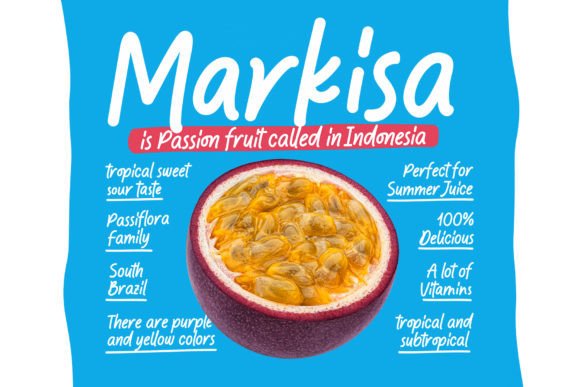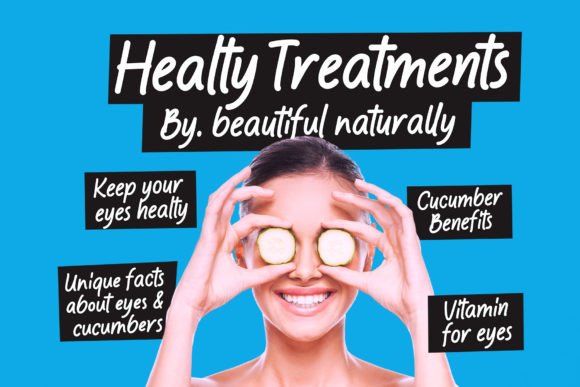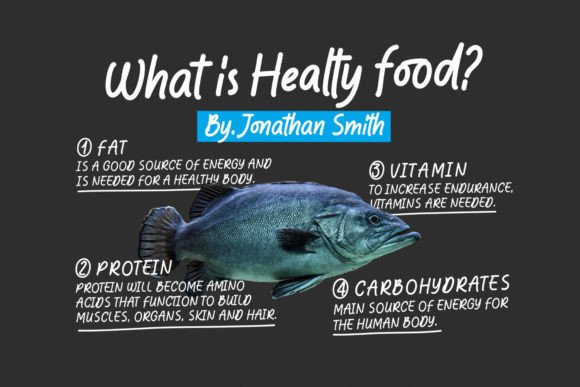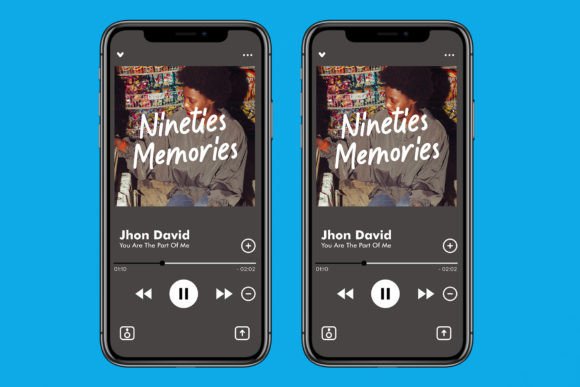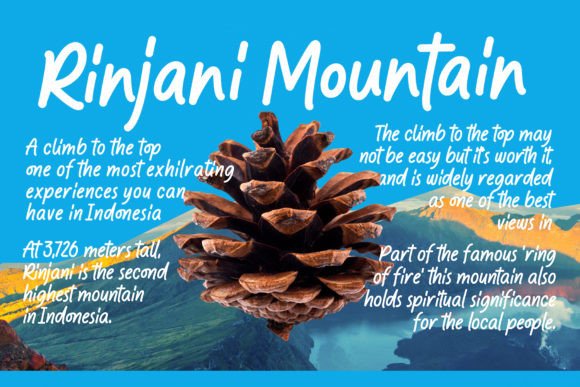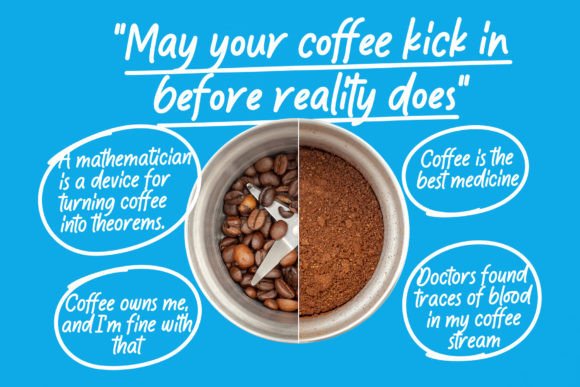
Introduction to Chillin Notez Font
Remember that moment when you stared blankly at your computer screen, struggling to convey the perfect message for your creative project? The cursor blinks, the words won’t come, and you’re left wondering what’s missing? That’s when you need a design resource that speaks volumes without saying a word – enter the Chillin Notez Font.
This sleek, high-quality font is a game-changer for designers looking to elevate their work. With its flowing lines and cool, contemporary vibe, Chillin Notez Font adds an air of refinement to any project. Whether you’re crafting captivating advertisements, designing eye-catching posters, or creating stunning social media graphics, this font is your ultimate companion for conveying a message that resonates.
What sets Chillin Notez Font apart is its versatility and accessibility. You can download it for free, making it an invaluable resource for designers of all levels. Plus, its transparent background allows for seamless integration into any design, giving you the freedom to focus on what really matters – bringing your creative vision to life.
Key Features of Chillin Notez Font
- High-quality font design with a unique, creative aesthetic, perfect for various design projects.
- Available for free download, making it an excellent resource for designers on a budget or those just starting out.
- Transparency: This font features a transparent background, allowing for seamless integration with various design elements.
- Font size and resolution: This font is designed to be scalable, with a recommended resolution of 300 DPI for optimal clarity.
- Unique characteristics: The Chillin Notez Font features a modern, minimalist design with clean lines and a subtle flair, making it ideal for creative projects that require a touch of sophistication.
- Design versatility: This font is suitable for a wide range of design applications, from branding and marketing materials to digital art and graphic design.
Honest Review: Chillin Notez Font
As a designer, I’ve had my fair share of fonts, but the Chillin Notez Font caught my attention with its quirky charm. I downloaded it for free, and I must say, it’s a great addition to my design resource library.
- ✨ The font’s unique style is perfect for creative projects that need a touch of personality.
- ✨ The transparent background makes it easy to work with and allows for seamless layering.
- ✨ The font is highly legible, even at small sizes, making it a great choice for body text.
- ⚠️ The font’s irregular shape can make it challenging to pair with other fonts, especially those with more traditional styles.
- ⚠️ Some users may find the font’s uniqueness a bit overwhelming or distracting, especially in more formal projects.
Overall, I’m quite impressed with the Chillin Notez Font. It’s a great addition to any designer’s toolkit, especially for creative projects that need a bit of flair. With its high quality and transparent background, it’s a versatile font that’s sure to inspire some amazing designs.
Insert the Chillin Notez Font into your PowerPoint or Word document, and use it to create engaging presentations and reports.
Tips and Best Practices
To get the most out of the Chillin Notez Font, use it on a transparent background to create a clean and modern look. Experiment with different font sizes and styles to add visual interest to your designs.
The Chillin Notez Font is suitable for a wide range of creative projects, including:
Brand identity materials, such as logos and business cards
Social media graphics and advertisements
Marketing materials, such as brochures and flyers
Presentations and reports